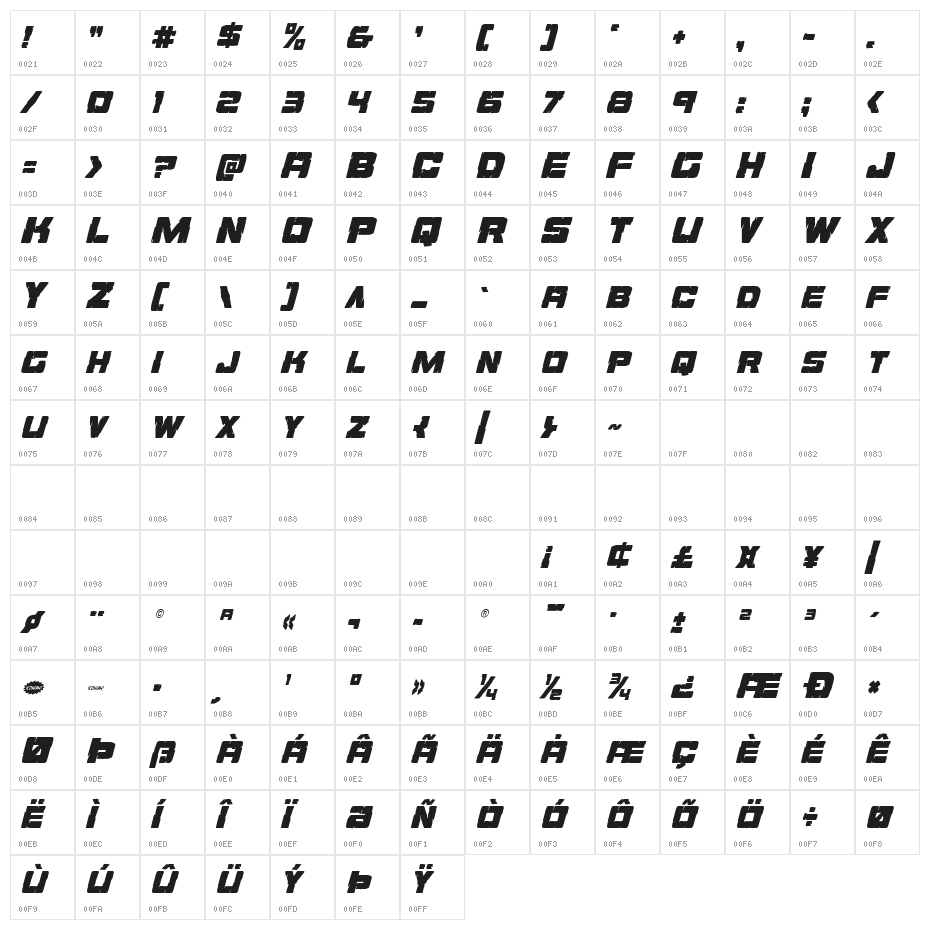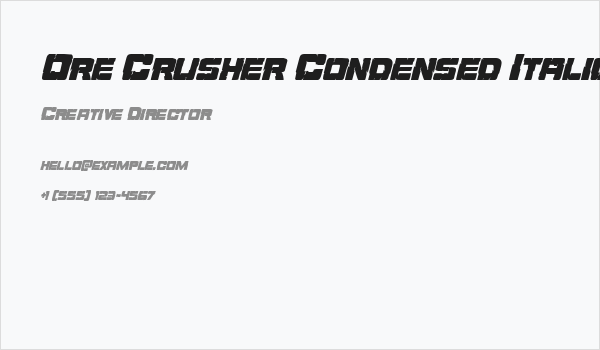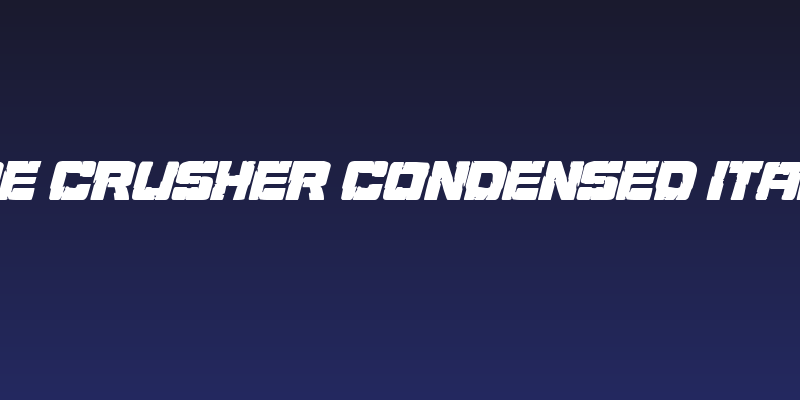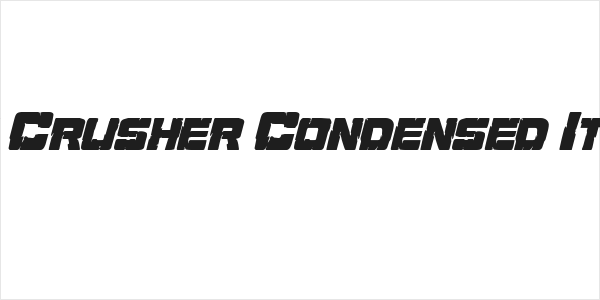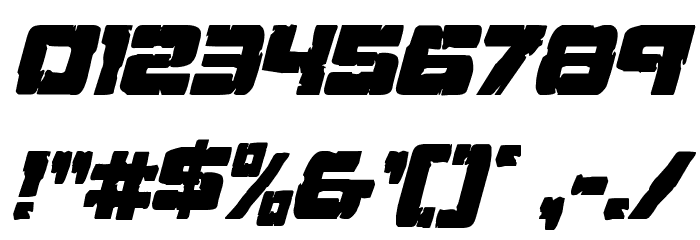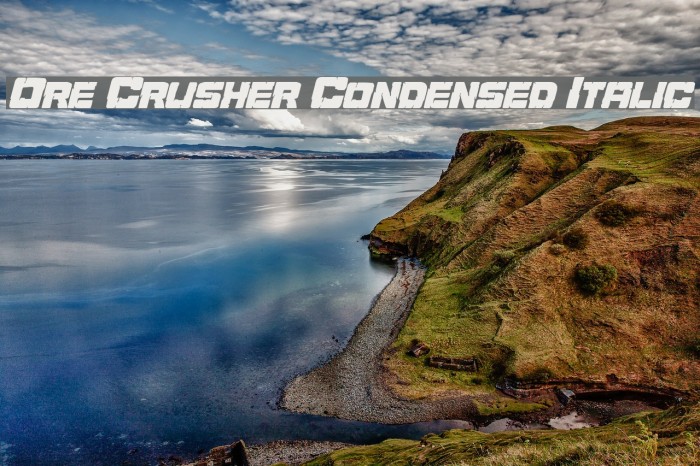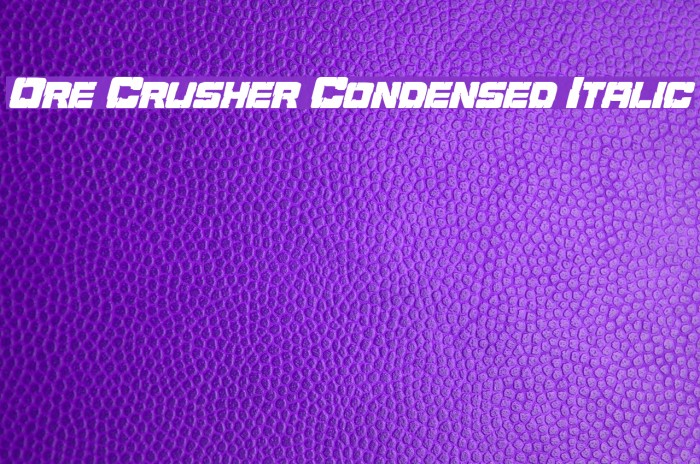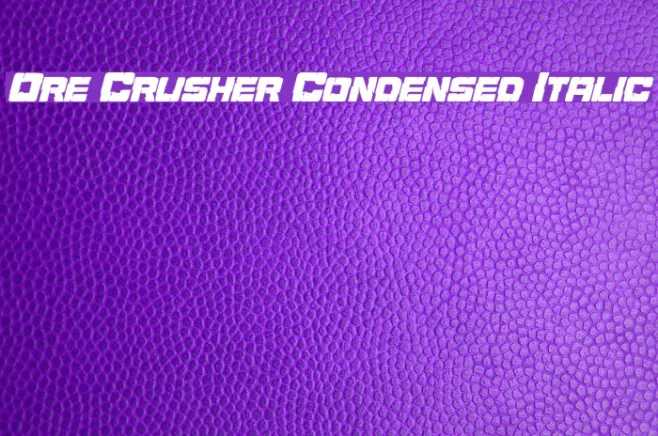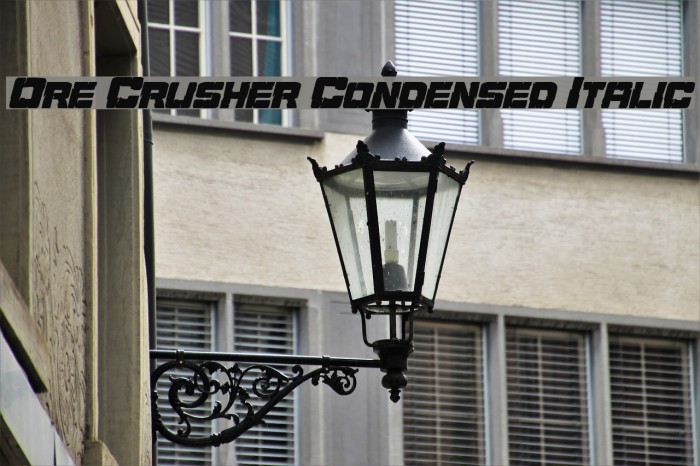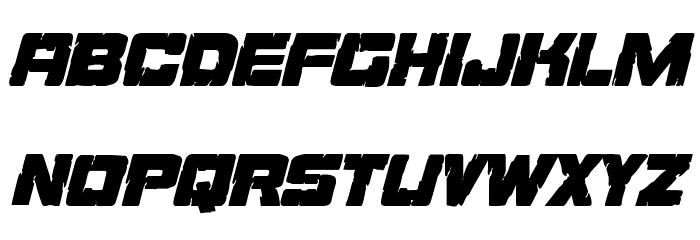
Ore Crusher Condensed Italic Font
Ore Crusher Condensed Italic Description
This font features a bold, condensed style with a distinct italic slant, giving it a dynamic and energetic appearance. The characters are robust and impactful, with a slightly distressed texture that adds a rugged, industrial feel. The uppercase and lowercase letters maintain a consistent height, enhancing the uniformity and compactness of the design. The numerals and special characters follow the same stylistic cues, ensuring a cohesive look across all elements. The font's strong presence makes it ideal for attention-grabbing headlines and titles.